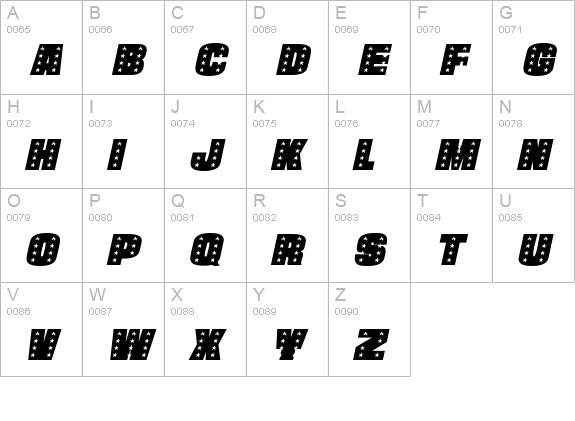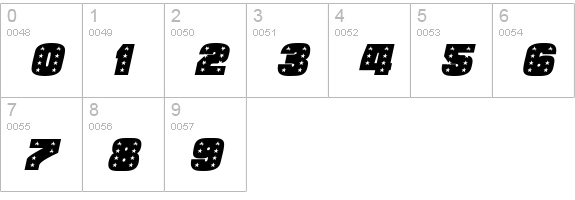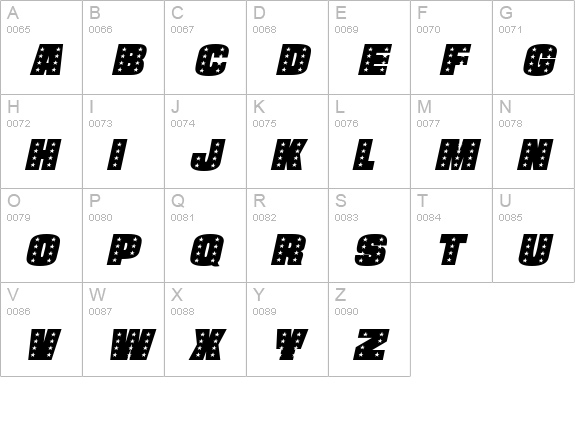
StarsCapsHeavy Italic Font Details
StarsCapsHeavy Italic is a distinctive, italic variant in the StarsCapsHeavy typeface family \xE2\x80\x94 well suited to design and typography projects.
StarsCapsHeavy Italic is a bold and captivating font that brings a touch of elegance and sophistication to any design project. The delightful combination of the heavy weight and italic style gives this font a strong and dynamic presence, perfect for making a bold statement. This font is ideal for creating eye-catching headings, titles, and logos that demand attention. Its unique and stylish letterforms are reminiscent of classic typography, yet with a modern twist that adds a contemporary edge. The slanted and weighty letterforms create a sense of movement and energy, drawing the viewer's eye effortlessly. StarsCapsHeavy Italic is a versatile font that can be used in a wide range of design projects, from print materials such as posters, brochures, and packaging to digital designs like websites, social media graphics, and digital ads. Its versatility allows it to seamlessly adapt to different design styles and contexts, making it a valuable asset for any designer. One of the best things about StarsCapsHeavy Italic is that it is freely available to download at FontsMarket.com. This means that you can access this remarkable font without any cost, making it accessible to designers of all levels. With just a few clicks, you can enhance your designs with the bold and striking aesthetic of StarsCapsHeavy Italic. Download StarsCapsHeavy Italic today and elevate your designs to new heights. Its powerful and captivating presence will leave a lasting impression on your audience, making your designs truly stand out. Whether you are working on a personal project or a professional assignment, StarsCapsHeavy Italic is the perfect choice to add a touch of elegance and flair.